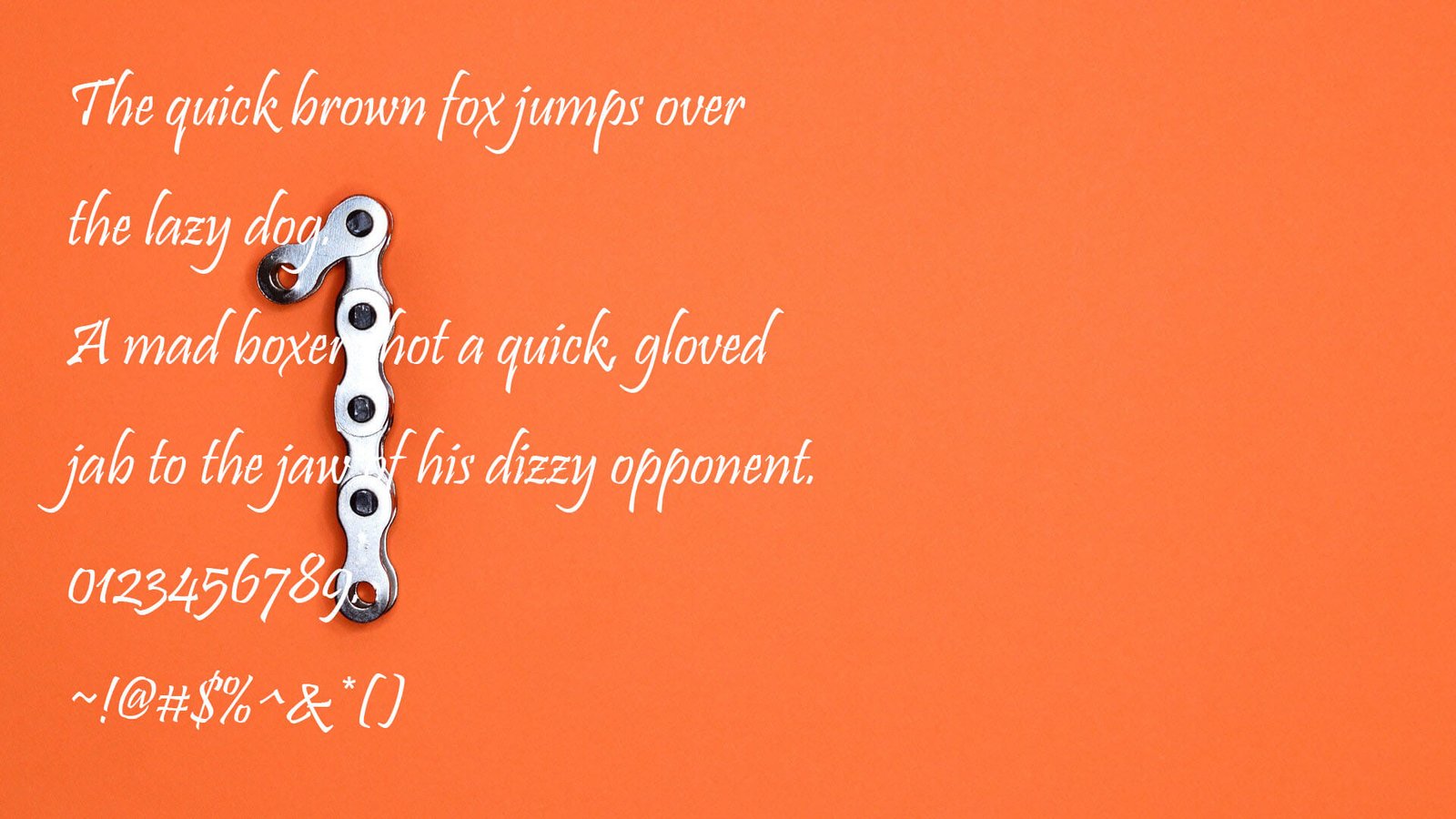
Pristina font is from a calligraphic-typeface family. Its designer is Phill Grimshaw. It has such a calligraphic style that artfully exposes all of its uncontrollable standards and qualities.
It has distinctive qualities that are really attractive and eye-catching. This font has only one style that is regular.
Pristina Font Family
| Name | Pristina Font |
| Designer | Phill Grimshaw |
It contains 247 glyphs and 2048 units per EM. This font contains characters that include uppercase letters, lowercase letters, numerals, symbols, and special characters. This font is very legible and has a modern design.